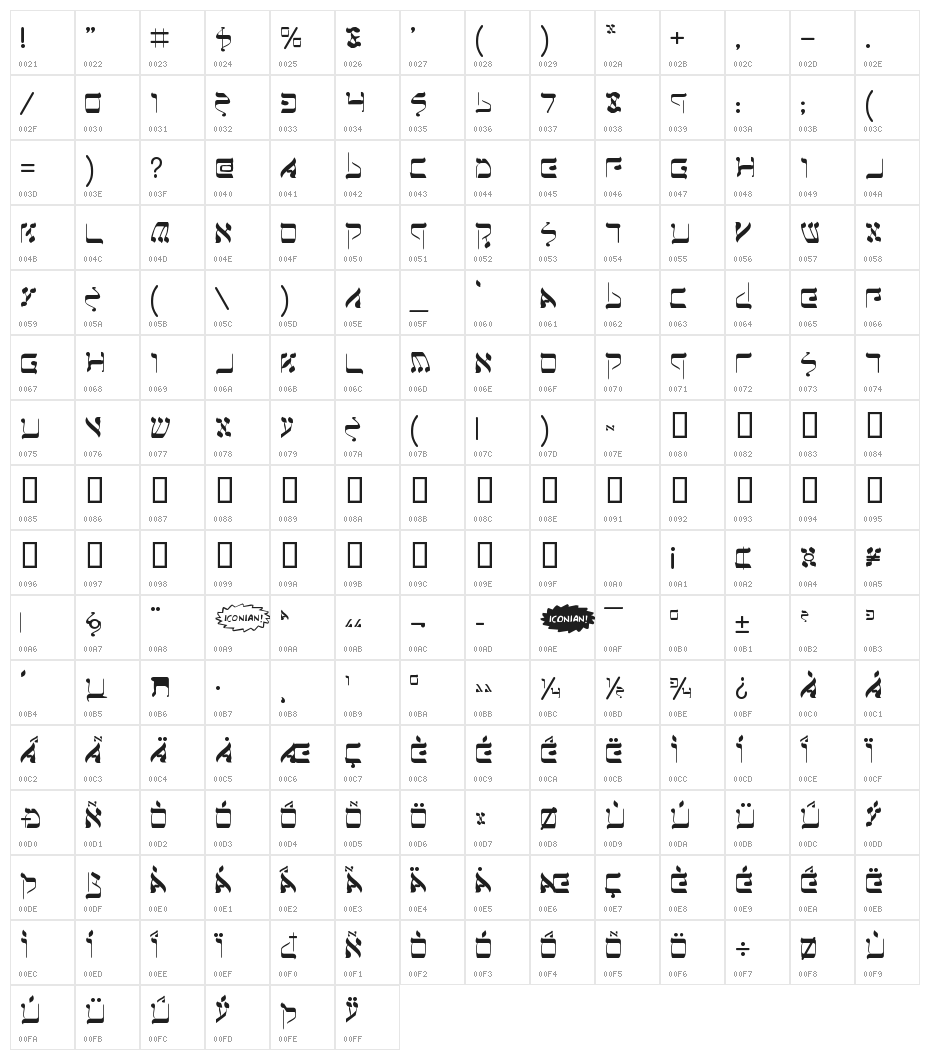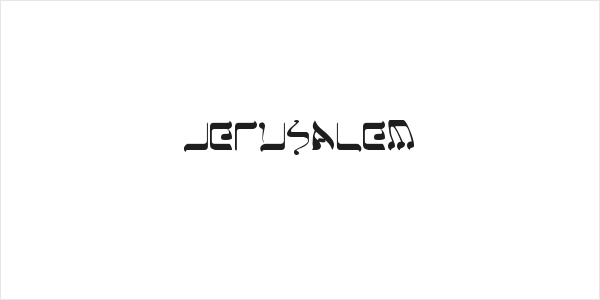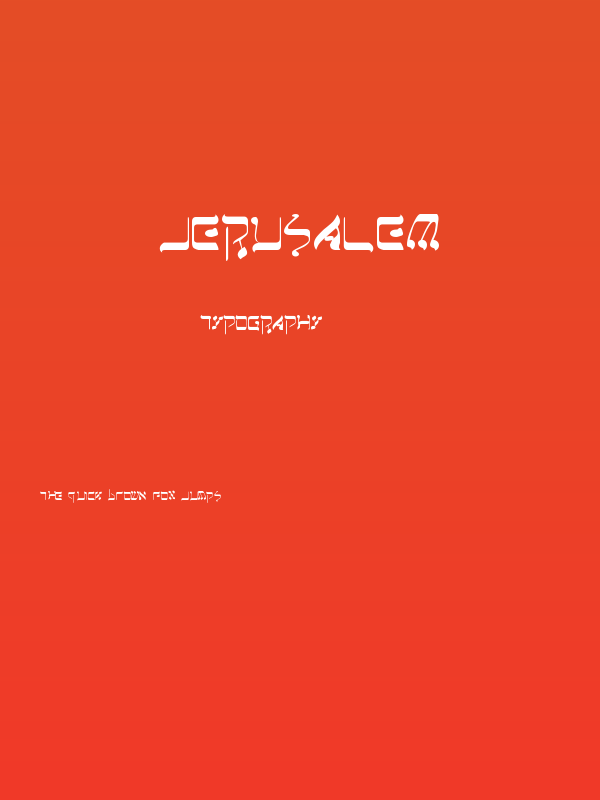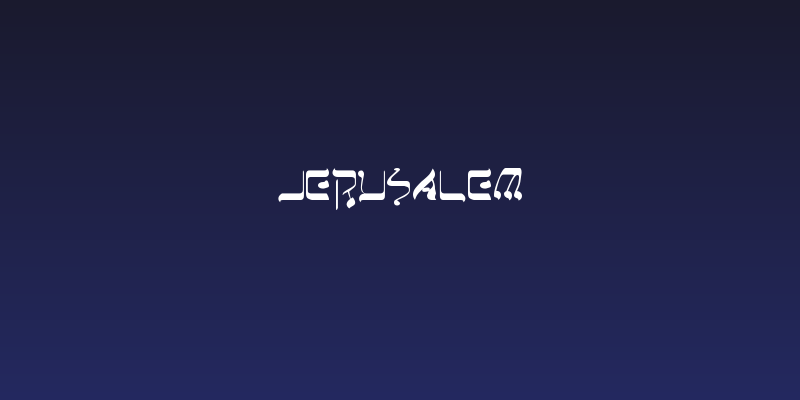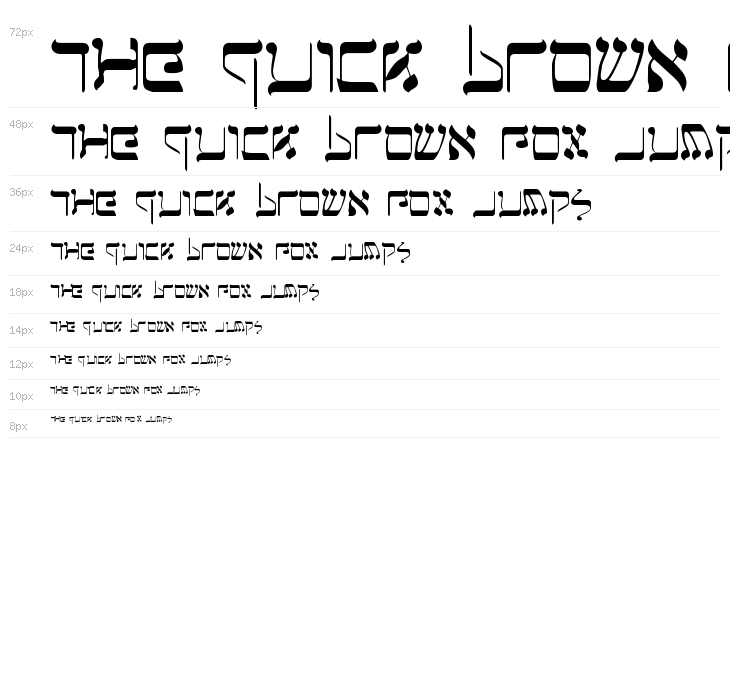
Jerusalem Font
Jerusalem Description
This font features a unique and artistic design that combines elements of traditional script with modern geometric shapes. The characters are bold and have a distinct, angular style, reminiscent of ancient scripts. The strokes are thick and consistent, providing a strong visual impact. The font includes both uppercase and lowercase letters, numbers, and a variety of special characters, all maintaining the same stylistic theme. The overall appearance is both decorative and functional, making it suitable for a range of creative projects.